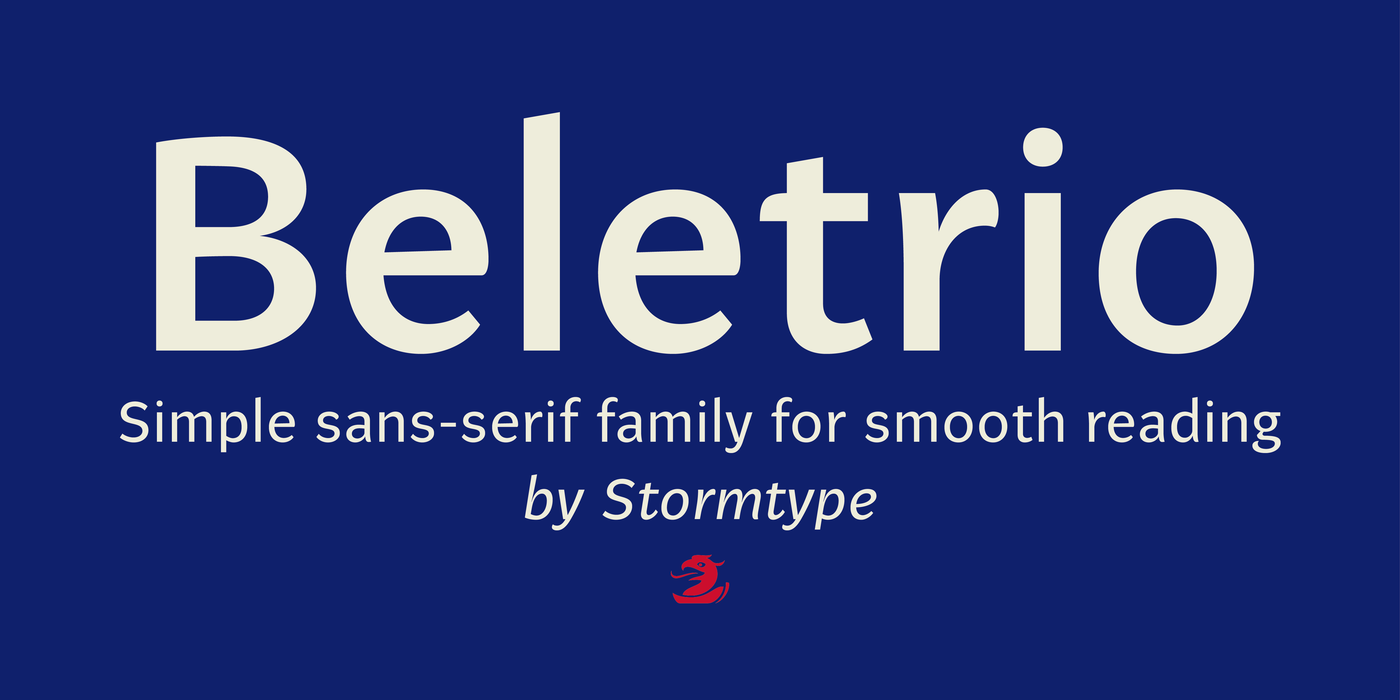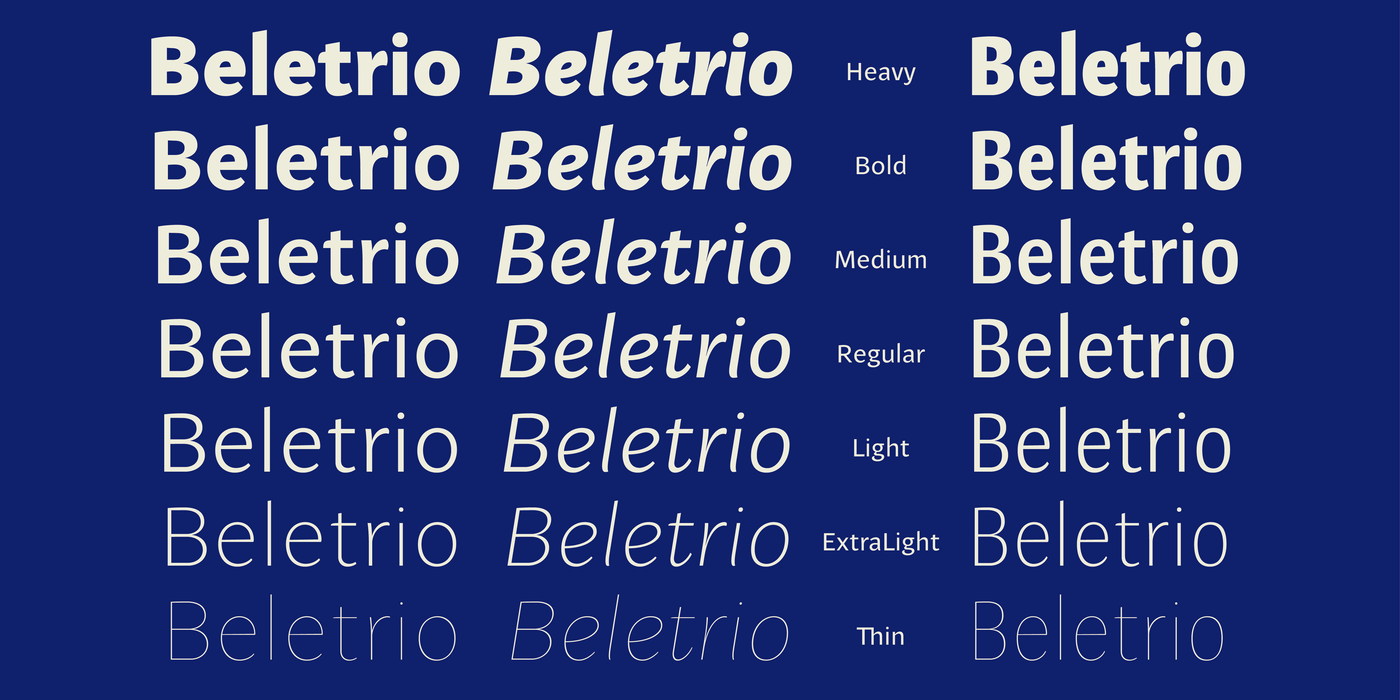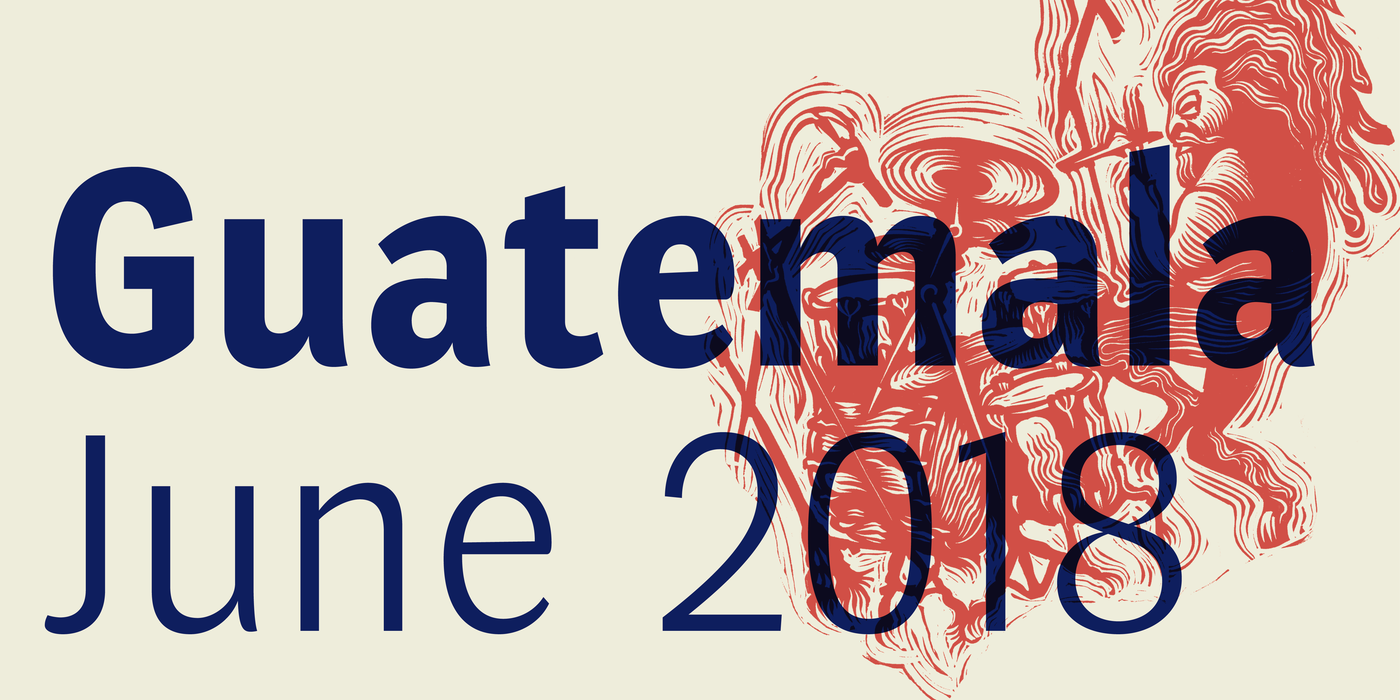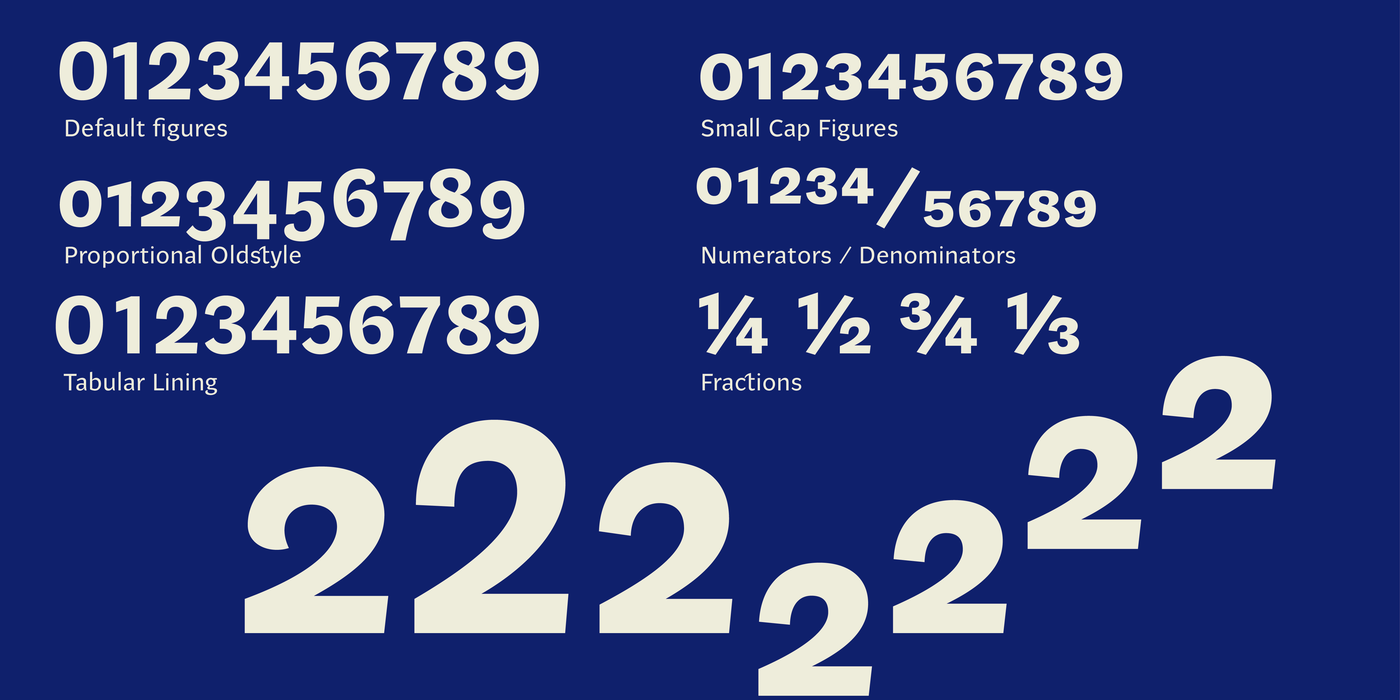
by František Štorm
Beletrio was made as companion to Beletria, it has many shapes in common. We already have plenty of sans-serif fonts with classical proportions in the Stormtype library, such as John Sans, Sebastian or Andulka, but Beletrio is certainly the most peaceful of the bunch – it shares not only the feel of its serif originator, but its soft curves provide lovely visual caress as well. The smooth endings are not visible at first, they are balanced for easy reading as they solve some critical relations such as "rv, ry, rt", but in larger sizes you'll fully enjoy the picturesque details. It handles the smallest point sizes as well as large billboards, fashion magazines and philosophic tractates.
The goal of Beletria is to be a contemporary looking book typeface for fast reading (frankly, I was already bored of using of good old Baskerville for the volumes I illustrated recently). I needed an inconspicuous typographic element to combine with my pictures. The development of Beletria family took most of 2018 and resulted in 26 styles and 2 optical sizes. It has a large x-height and lively italics. Naturally the usual array of OpenType features is present. Beletria is perfect for electronic publication as well. The sans-serif counterpart is called Beletrio, it has the same features as the entire family, plus condensed styles.
Účelem Beletrie je současně vypadající knižní písmo pro rychlé čtení (upřímně, už mě nudilo používat starý dobrý Baskerville pro svazky které jsem ilustroval). Potřeboval jsem nenápadný typografický prvek ke kombinaci s mými obrázky. Vývoj písma Beletria zabral většinu roku 2018 a vyústil v rodinu o 26 řezech a 2 optických šířkách. Má velkou střední výšku minusek a živé kursivy. Obvyklá sestava OpenType funkcí je samozřejmě přítomna. Beletria je také výborná pro elektronické publikování. Bezserifový protějšek se nazývá Beletrio, má stejné funkce jako celá rodina a navíc i zúžené řezy.